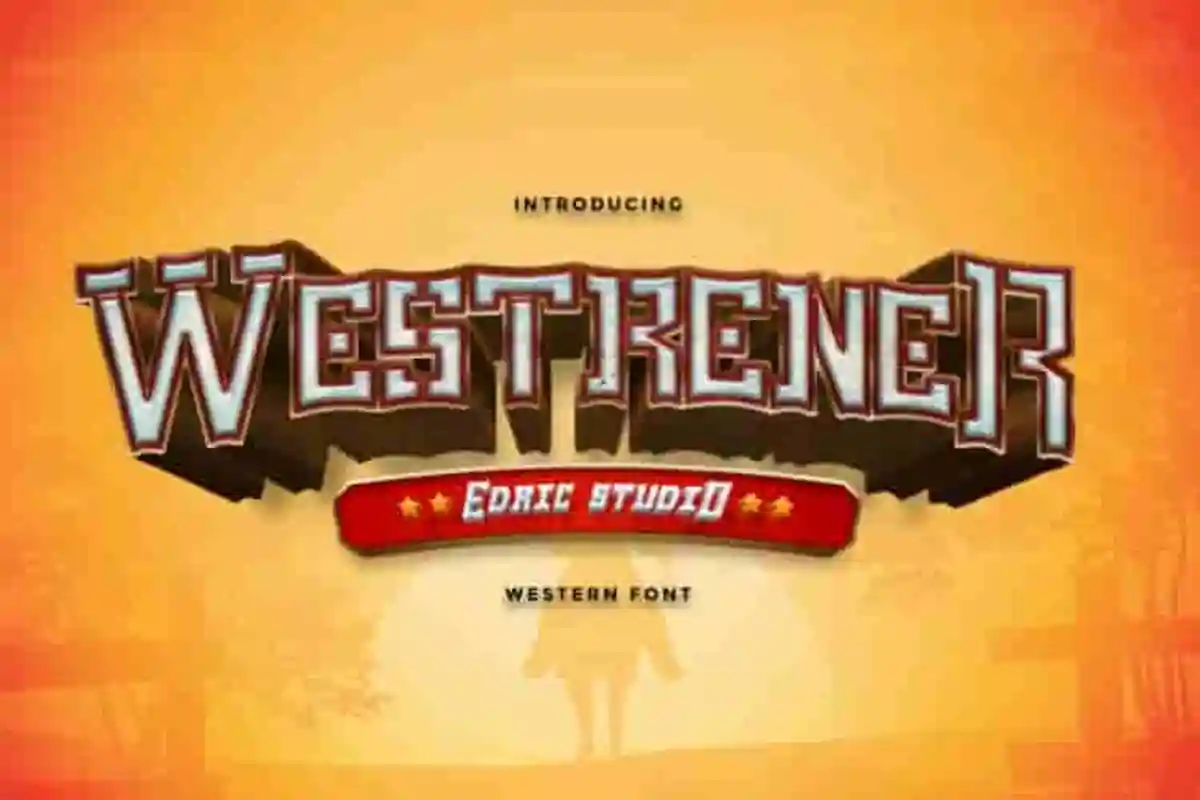
Westrener Modern Sans Serif Font
Westrener Modern Font bring the bold spirit of the Wild West into your design projects with Westrener Font, a handcrafted display typeface inspired by old American sheriff lettering. It has beautiful, fresh, elegant, natural and stylish glyphs. Westrener Luxury Font  will be perfect for branding, logo, photography and headlines etc. Editorial headlines, Westrener delivers a powerful visual impact.